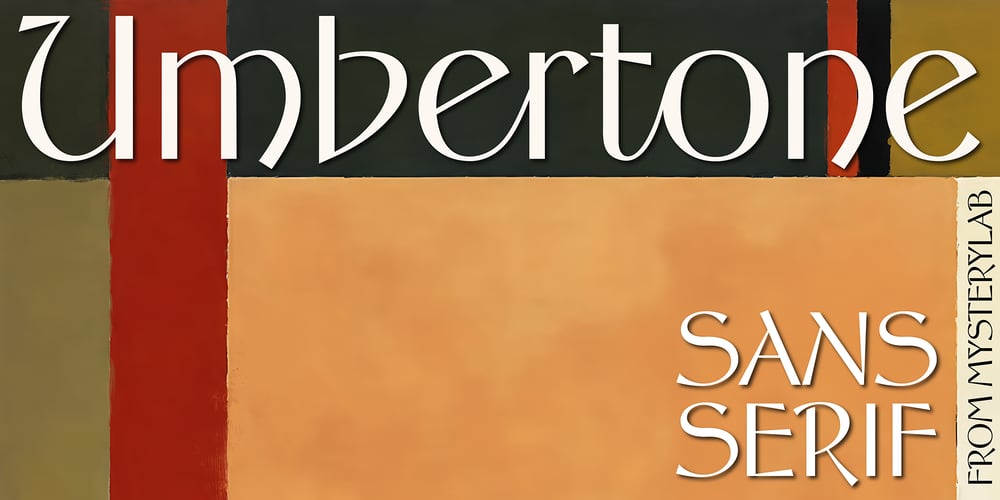
Umbertone
Umbertone font
Umbertone Font Family was designed by Mott Jordan and published by Mysterylab. Umbertone contains 1 styles and family package options. Umbertone is a modern sans serif with roots in classic hardcover book design and the Art Nouveau movement. It takes the inventiveness of the early 20th century designers and brings it a century forward with some unique letterforms and a collection of subtle but elegant ligatures. Excellent for typographic book cover concepts, and also great for high-end branding for luxury and fashion products.